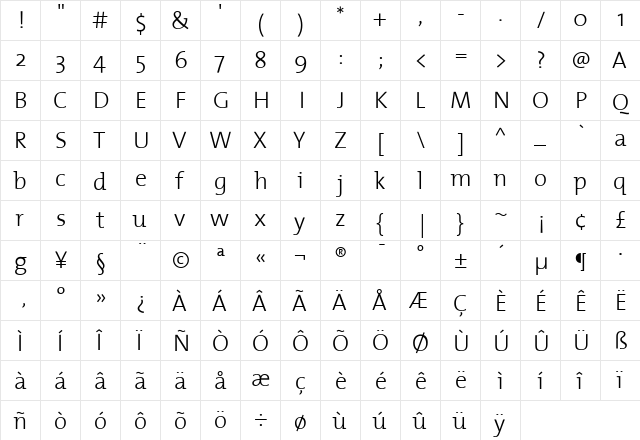
The Mix Light- Regular Font Preview
The Mix Light- Regular
The Mix Light- Regular Font Details
| Foundry | Copr. Luc as de Groot |
Design Context for The Mix Light- Typeface
The Mix Light- offers clean, dependable letterforms without strong stylistic allegiance, making it a practical choice for designers who need flexibility. The delicate stroke weight brings airiness and refinement to layouts.